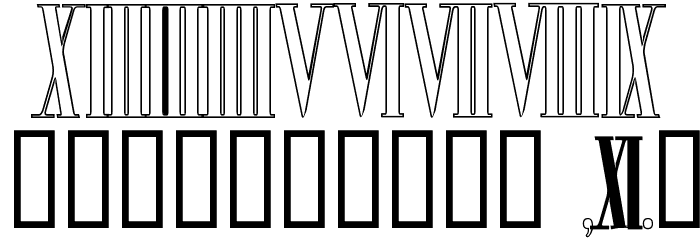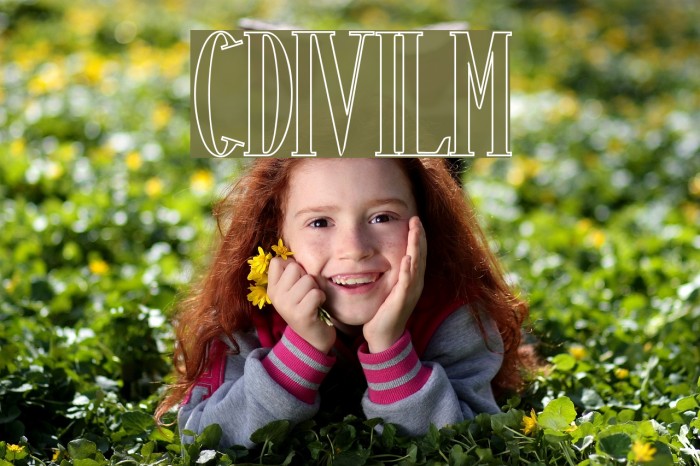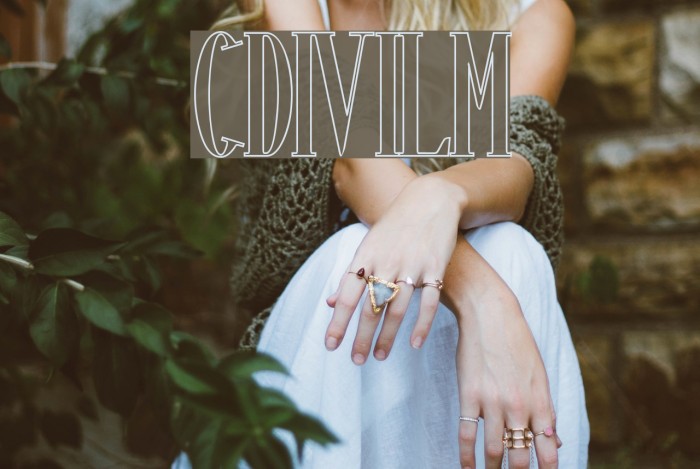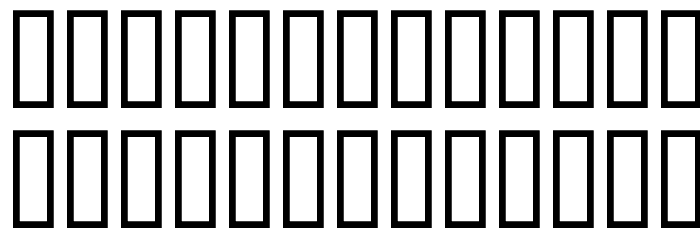
ChronosOutline Font
ChronosOutline Description
This font features a classic and elegant outline style, reminiscent of Roman numerals and ancient inscriptions. The characters are tall and slender, with a refined and sophisticated appearance. The outlines are clean and precise, giving each letter a distinct and recognizable form. This font is ideal for creating a timeless and formal look, suitable for a variety of design projects that require a touch of historical elegance.
An elegant outline font with a classic Roman numeral style from Uncategorized fonts.
- Proposed Projects: Ideal for historical documents, formal invitations, and classic branding projects.
- Overall Style: Classic